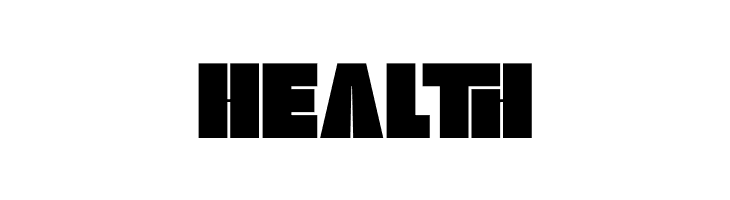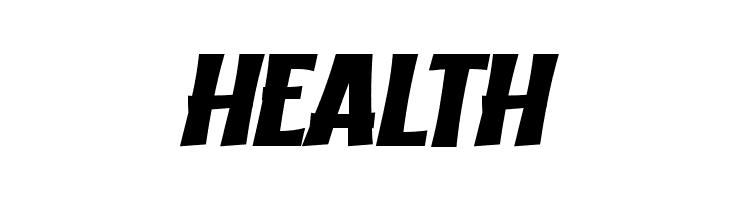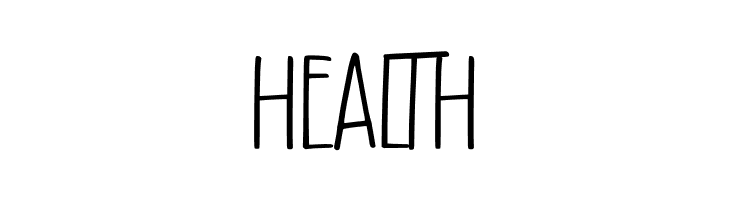
A playful, flowing font with seamless connections and whimsical loops.
A dynamic, handwritten script font with fluid, interconnected characters.
Bold, angular font with a rugged, industrial style.
A bold, slanted font with a dynamic and energetic style.
A playful, handwritten font with tall, narrow letters and a whimsical style.
A lively, cursive script font with dynamic strokes and elegant loops.
A bold, geometric font with a modern and industrial aesthetic.
A modern, handwritten-style font with elegant, flowing strokes.
A fluid, cursive script font with elegant, sweeping strokes and a handwritten appearance.
A bold, high-contrast serif font with a classic yet modern style.